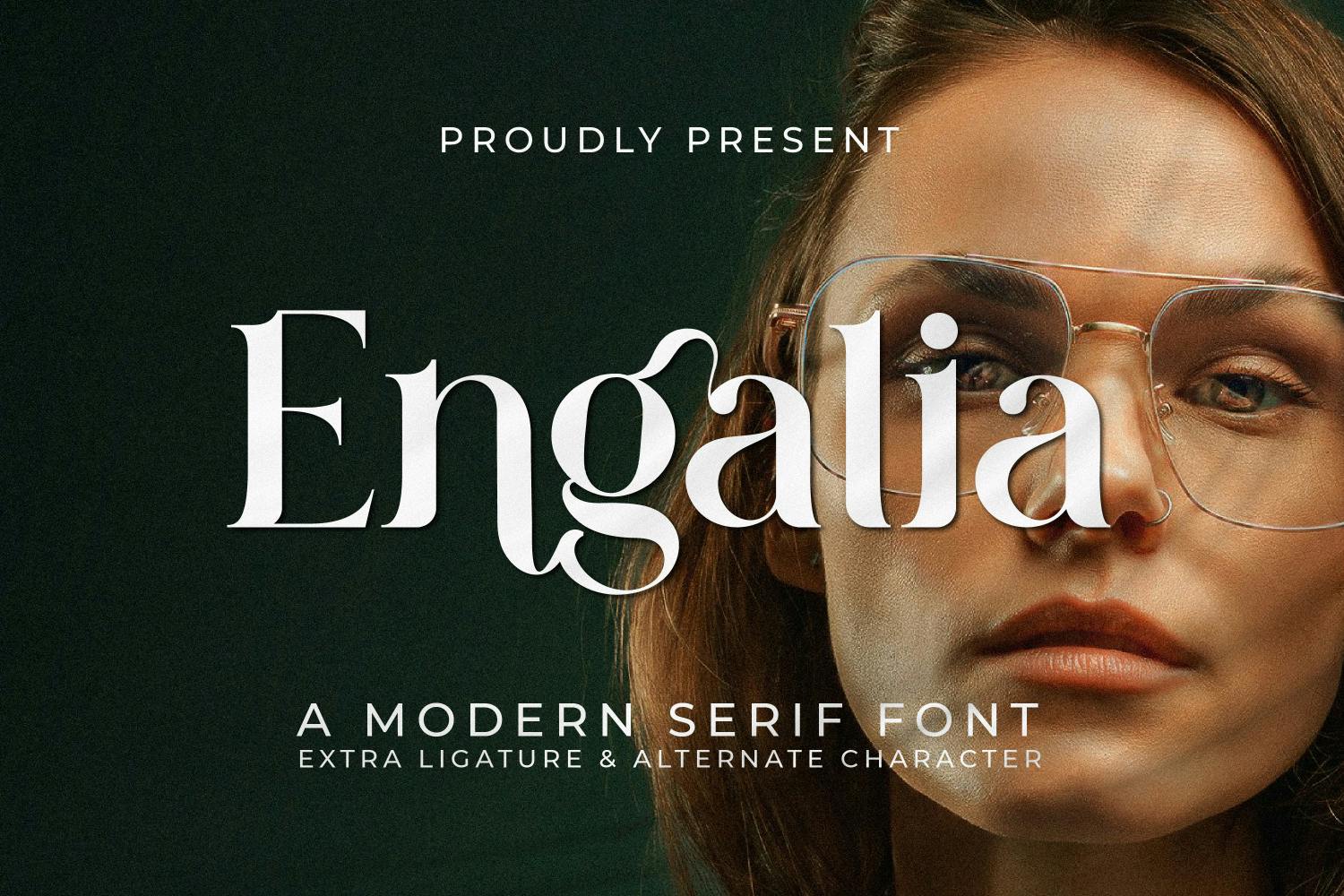
Engalia is a versatile serif font designed to enhance any design project with its elegant and timeless appearance. Offering normal spacing and optimum sizing for various applications, it provides users with the flexibility to create visually appealing text layouts. Comprehensive documentation is included, making it easy for individuals to seamlessly integrate this font into their work.